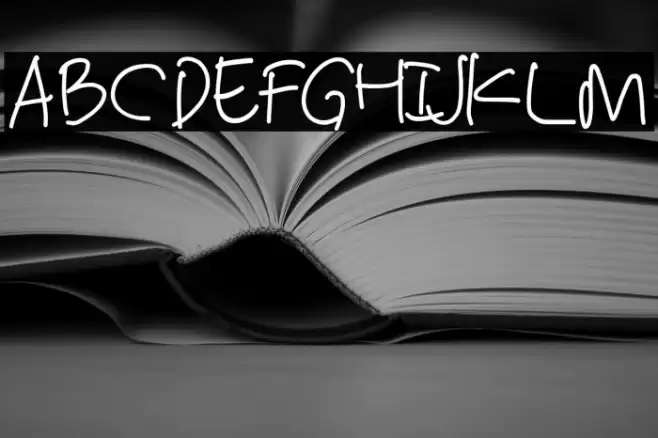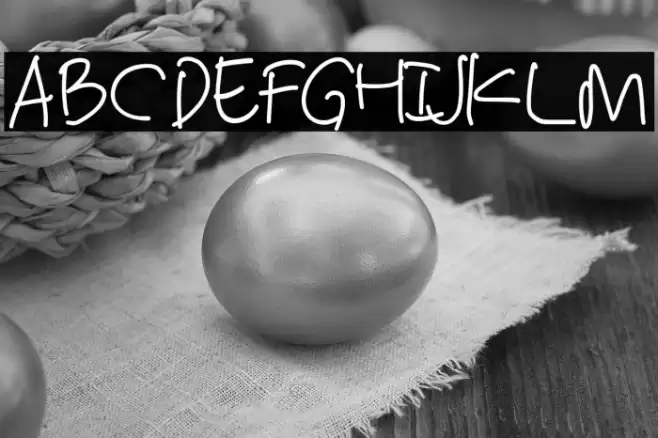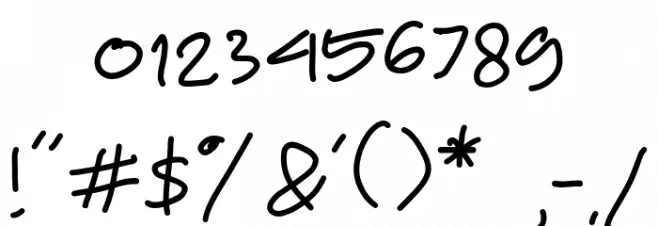
Victorya Handwriting Font
Victorya Handwriting Description
This font exudes a casual and personal touch, reminiscent of natural handwriting. The letters are slightly irregular, adding to its charm and authenticity. The strokes are smooth and flowing, with a consistent thickness throughout, giving it a cohesive look. The uppercase and lowercase letters maintain a playful yet legible style, making it suitable for informal and creative projects. Numbers and special characters are crafted with the same handwritten flair, ensuring uniformity across all elements. This font is ideal for projects that require a personal, approachable feel.
A casual, handwritten-style font with smooth, flowing strokes from Uncategorized fonts.
- Proposed Projects: Ideal for personal notes, greeting cards, invitations, and creative branding projects.
- Overall Style: Casual, Personal
- Use Case: Headlines, Informal text, Creative projects